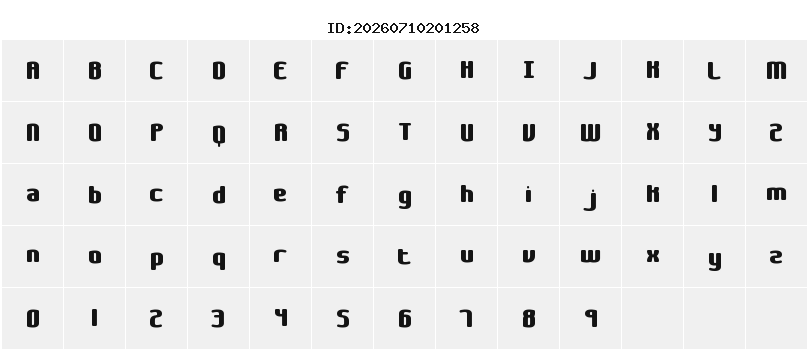
• Font Name: Galapogos BRK
• Full Font Name: Galapogos BRK
• Version: Version 1.02
• PostScript Name: GalapogosBRK
• Character Count: 164
About Galapogos BRK.ttf
Galapogos BRK.ttf is a modern, elegant sans-serif font designed for ultimate readability and visual harmony. Perfect for branding, headlines, web design, and print materials.